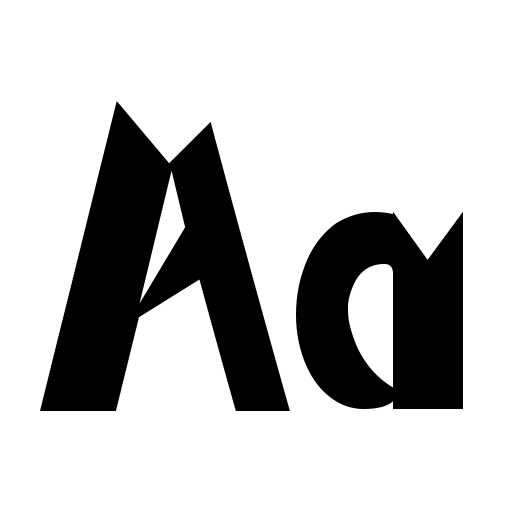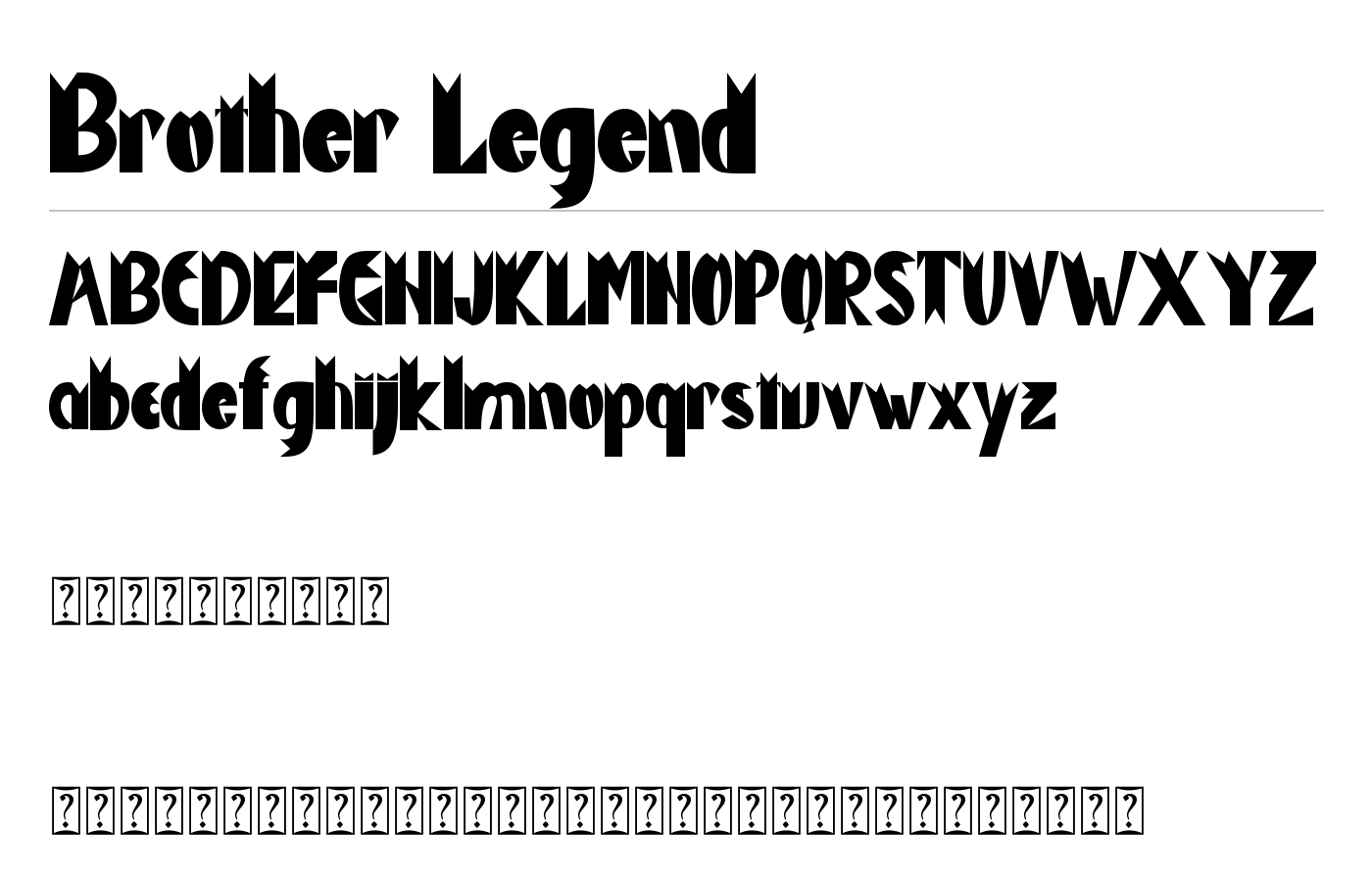
Brother Legend is a bold, geometric sans serif font with sharp, angular details that give it a strong, modern, and slightly edgy character. Its high contrast between thick and thin strokes, combined with distinctive letterforms featuring pointed terminals and unique shapes, makes it ideal for eye-catching headlines, logos, and branding that seek to convey confidence and a contemporary vibe. This font works best in standout display uses where its dramatic style can shine without sacrificing legibility.
Brother Legend Font
About Brother Legend Font
| Font family | Brother Legend Font |
| Designer | Yoga Letter 2024 (Isroni Yoga Prasetya) |